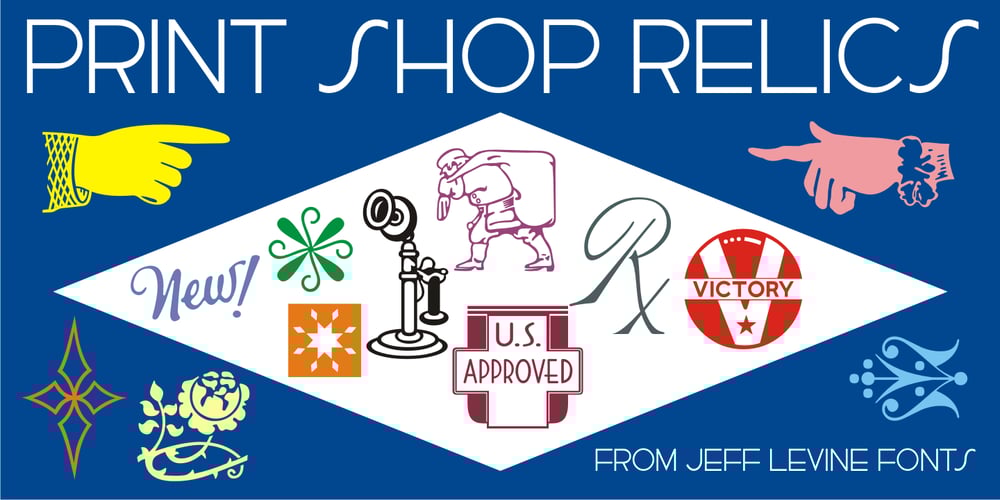
Print Shop Relics JNL
Print Shop Relics JNL font
Print Shop Relics JNL Font Family was designed by Jeff Levine and published by Jeff Levine. Print Shop Relics JNL contains 1 styles and family package options. Pointing hands, floral embellishments, a World War II “Victory” emblem and an old telephone are but a few of the classic images redrawn from vintage source material for Print Shop Relics JNL. Lovers of pre-digital clip art from the letterpress era will find these embellishments useful, charming and helpful.